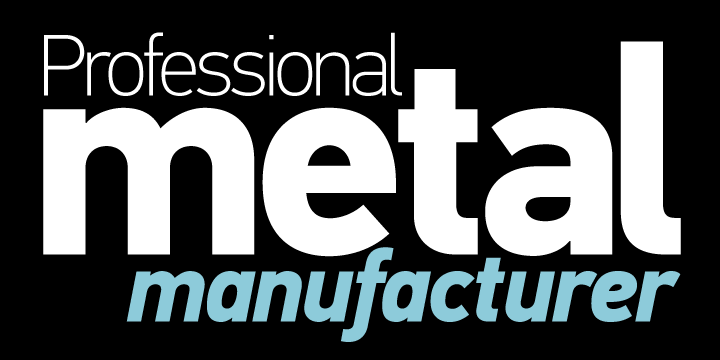
DIN Text Pro is official proposal for DIN 1451 was made in the year 1936 by the German Standards committee Deutsches Institut Normung (DIN). This was the paradigm lettering type to be used in the road traffic arena. The principle of this standard was to set down an eternal and decipherable calligraphy style.
The DIN Text Pro series, comprises of lowercase ascenders higher as compared to the capitals. It also consists of varying letter proportions and italics that are essentially a mechanically-obliqued adaptation of the regular weights. These are rather true-italics.
Foundry: Panos Vassiliou
Publisher: Parachute